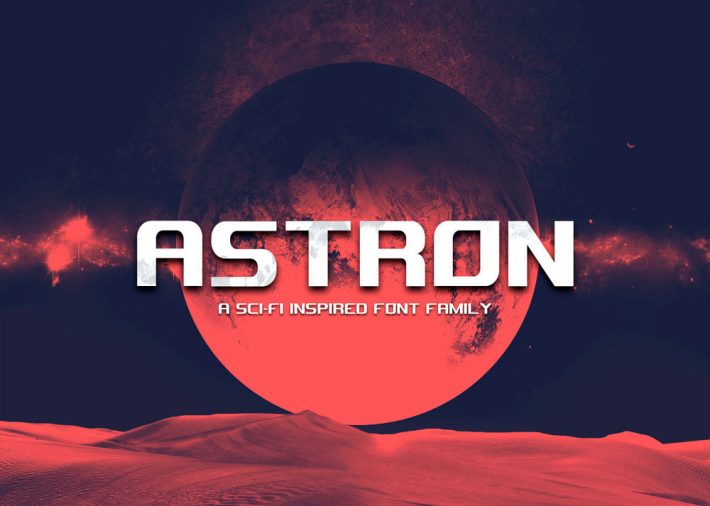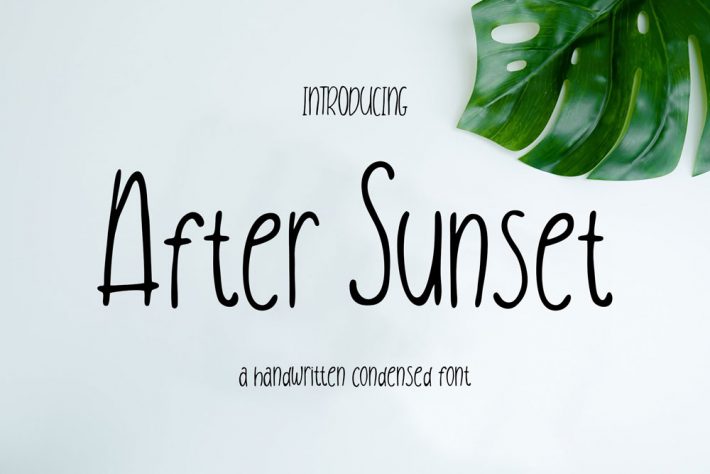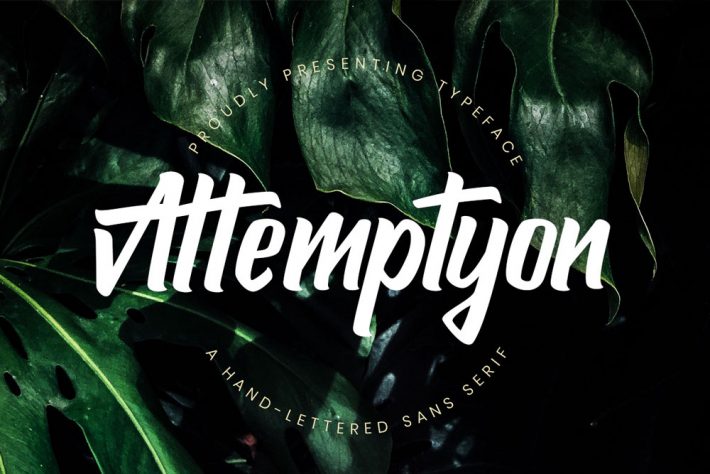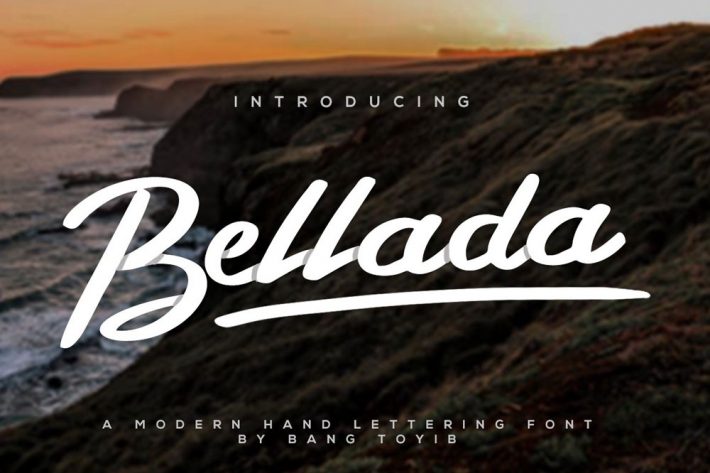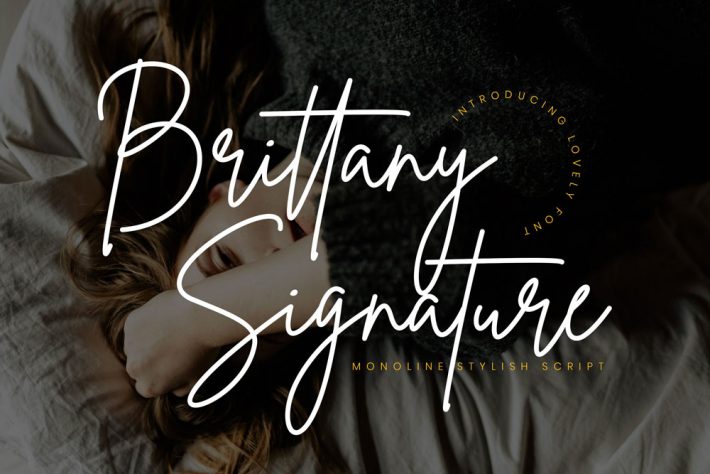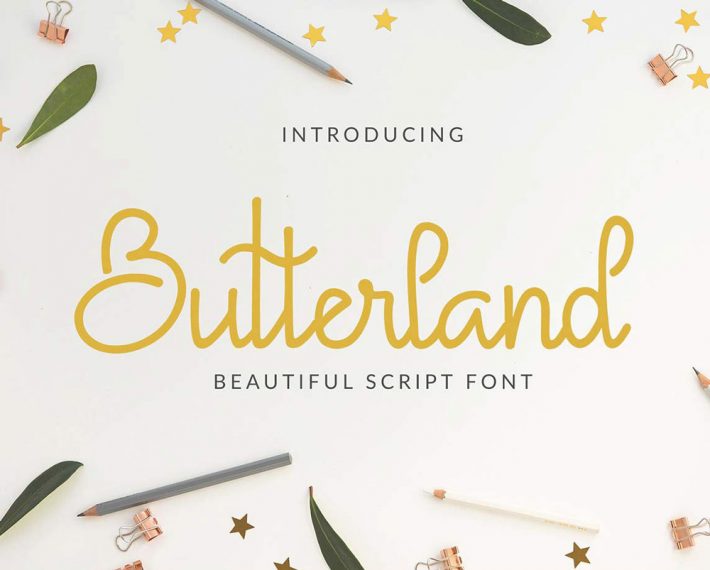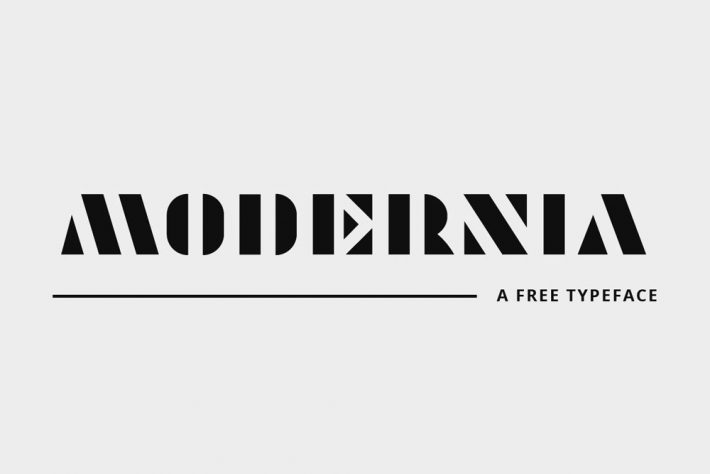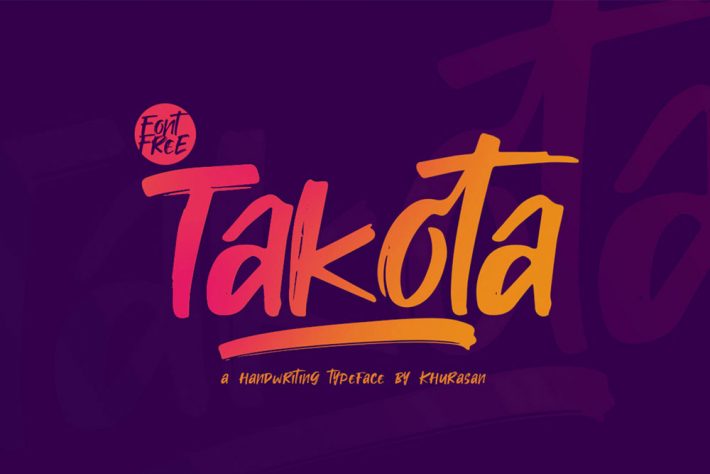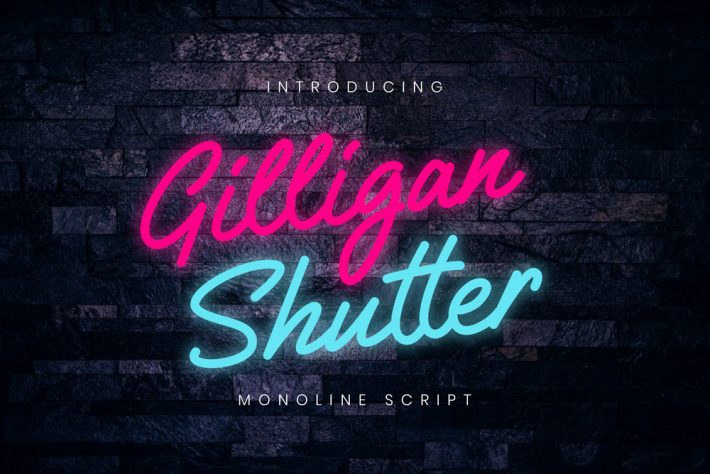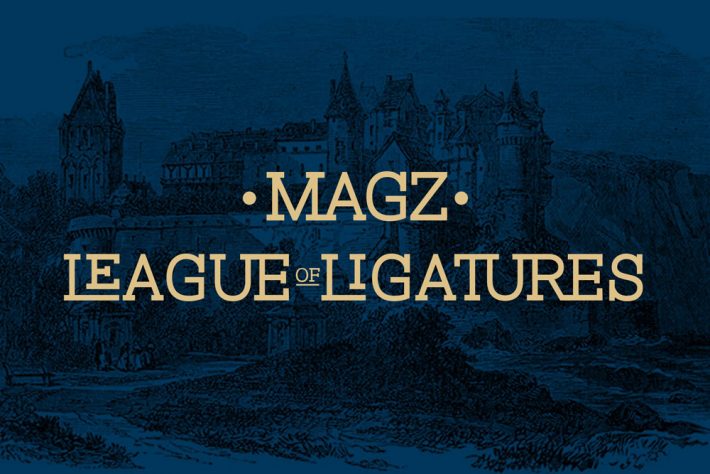
In this post, we gathered Free Fonts for Designers a list of script fonts and brush typeface for you which you can use in any of your project. I am pretty sure that these fonts would be very helpful for create amazing typography and any design projects.
1. Attemptyon Sans Serif Free Font
Attemptyon is a bold handwritten all-caps sans-serif with elegant and modern style. Attemptyon is perfect for branding projects, logo, wedding designs, social media posts, advertisements, product packaging, product designs, label, photography, watermark, invitation, stationery and any projects that need handwriting taste.
2. Magz Slab Free Font
Magz Slab is a modern geometrically constructed slab serif font with subtle contrast between the horizontal and vertical weights. It is great for display purposes having a variety of Ligatures that will add a unique feel to your designs.
3. NH Rail Slab Typeface
Introducing NH Rail Font. It is designed by Von Type Co, this is a premium font, are sold on creativemarket, but it was great, it is free today for download. NH Rail Slab Typeface is an extra wide slab serif inspired by the old logo for the New Haven Railroad (1872-1968) created by Herbert Matter. It fuses long bold slab serifs with modern block styling to create an impactful timeless look that adds a punch to any design & logo.
4. Gilligan Shutter Monoline
Gilligan Shutter Monoline is a sophisticated signature monoline bold collection that give natural lettering for your latest project.
Gilligan Shutter Monoline is perfect for branding projects, logo, wedding designs, social media posts, advertisements, product packaging, product designs, label, photography, watermark, invitation, stationery and any projects that need handwriting taste.
5. ARCO Free Font
ARCO is an animated typeface, with more than 80 characters and uppercase alphabet only. It is free to use for personal and commercial projects, only with the respective recognition of my authorship in the credits.
6. Breakfast Blend Brush Free Font
Breakfast Blend – Brush is a Free Fonts for Designers from this hand crafted font duo that features a loopy signature style script font with a basic hand drawn all-caps brush font – perfect for creating quotes, logos, advertising, watermarks and much more! This free version includes the all-caps brush font only.
7. After Sunset Free Font
After Sunset is a clean handwritten condensed sans-serif and playful, cute, unique, funny with lots of personality.
After Sunset is perfect for branding projects, logo, wedding designs, social media posts, advertisements, product packaging, product designs, label, photography, watermark, invitation, stationery and any projects that need handwriting taste.
8. Cox’s Bazar Free Font
9. Brittany Signature Font
Brittany Signature Script consisting of a fashionable sophisticated signature-style script with its own unique curves and an elegant inky flow.
Brittany Signature Script is perfect for branding projects, logo, wedding designs, social media posts, advertisements, product packaging, product designs, label, photography, watermark, invitation, stationery and any projects that need handwriting taste.
10. Free Modernia Geometric Font
Free Modernia Geometric Font is a bold and strong unique geometric font. It contains uppercase, numbers and support multilingual. You can use this font for display use, headlines posters, sci-fi books, logo, photography, typography, watermark, quotes, wedding, branding, fashion, apparel, letter, book cover, packaging design, invitation, stationery, and other display use.
11. Takota Brush Font Free
Free Takota Handwritten Brush Font is a stylish brush font. It contains uppercase, lowercase, numbers, punctuation, symbols and support multilingual. This font is great for branding, labels and logos, merchandise, social media and much more. Takota font is free for personal and commercial use.
12. Astron – Free Sci-Fi Display Font
20. STANLEY – FREE ELEGANT DISPLAY TYPEFACE
Stanley is an elegant stencil display typeface from Jérémie Gauthier that combines rounded and rectangular forms. This font is multilingual and is perfect for branding, posters, letterhead, packaging designs, and much more.